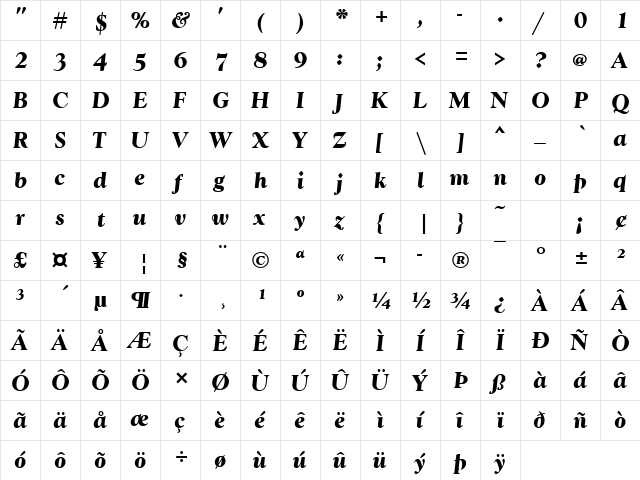
GoudyT Bold Italic
Design Context for GoudyT Typeface
GoudyT is a composed and adaptable typeface that performs quietly and consistently across a wide range of design contexts. Its italic angle brings a sense of urgency and motion to the letterforms. The heavy weight commands attention and anchors typographic hierarchies.
Pro Tip: Try GoudyT for annotation and caption copy alongside an upright companion — the contrast in angle creates a dynamic but ordered typographic system.